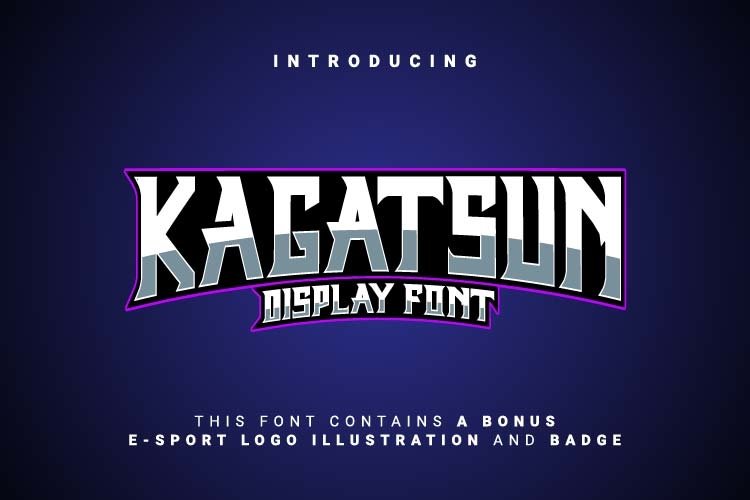
Kagatsun - Display Font
Kagatsun
Fonts with bold characters that are suitable for your design needs such as e-sports logo designs, t-shirt designs, game designs, packaging, posters etc.
-Uppercase
-Lowercase
-Numeral
-Punctuation
-Multilingual